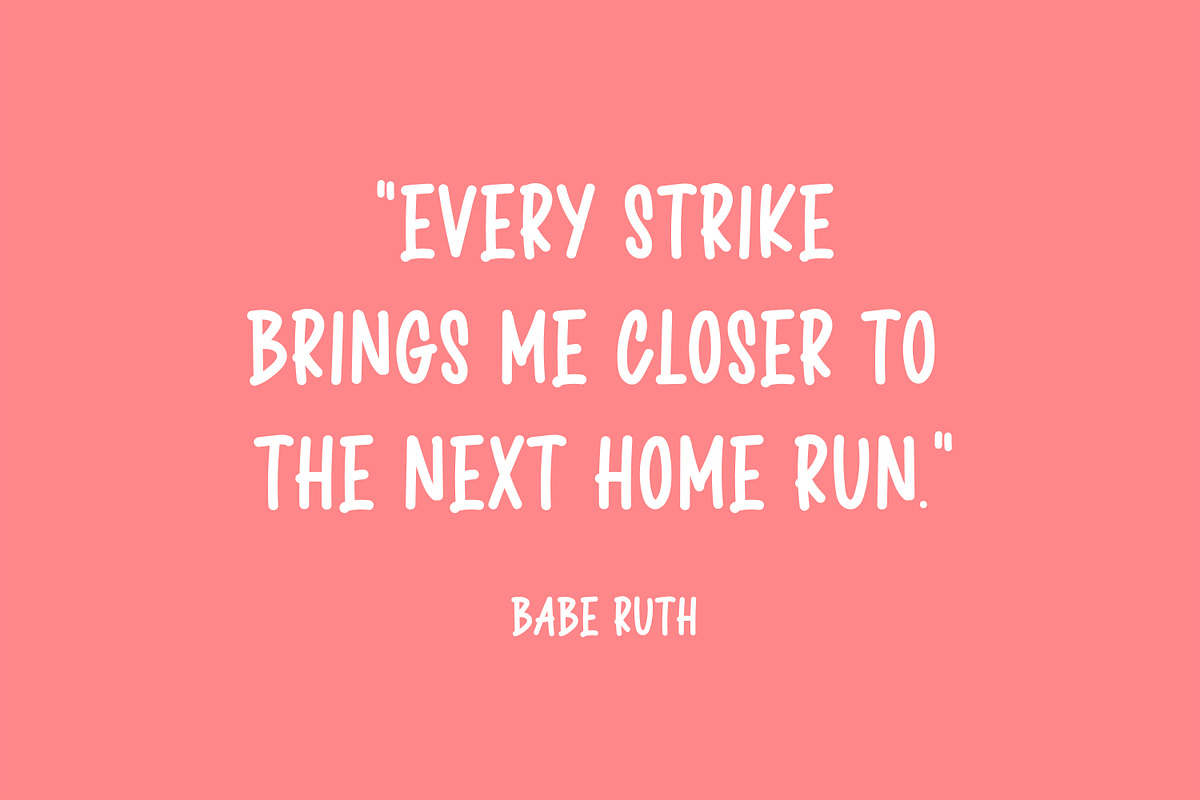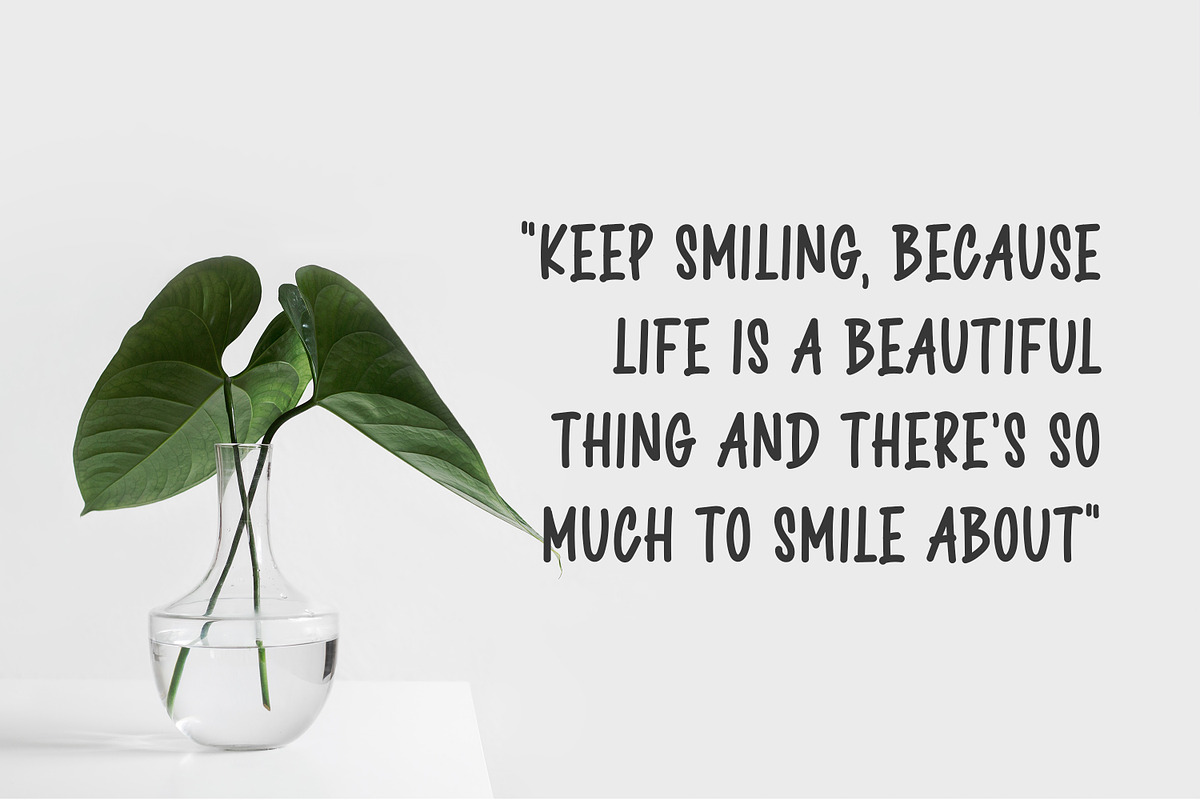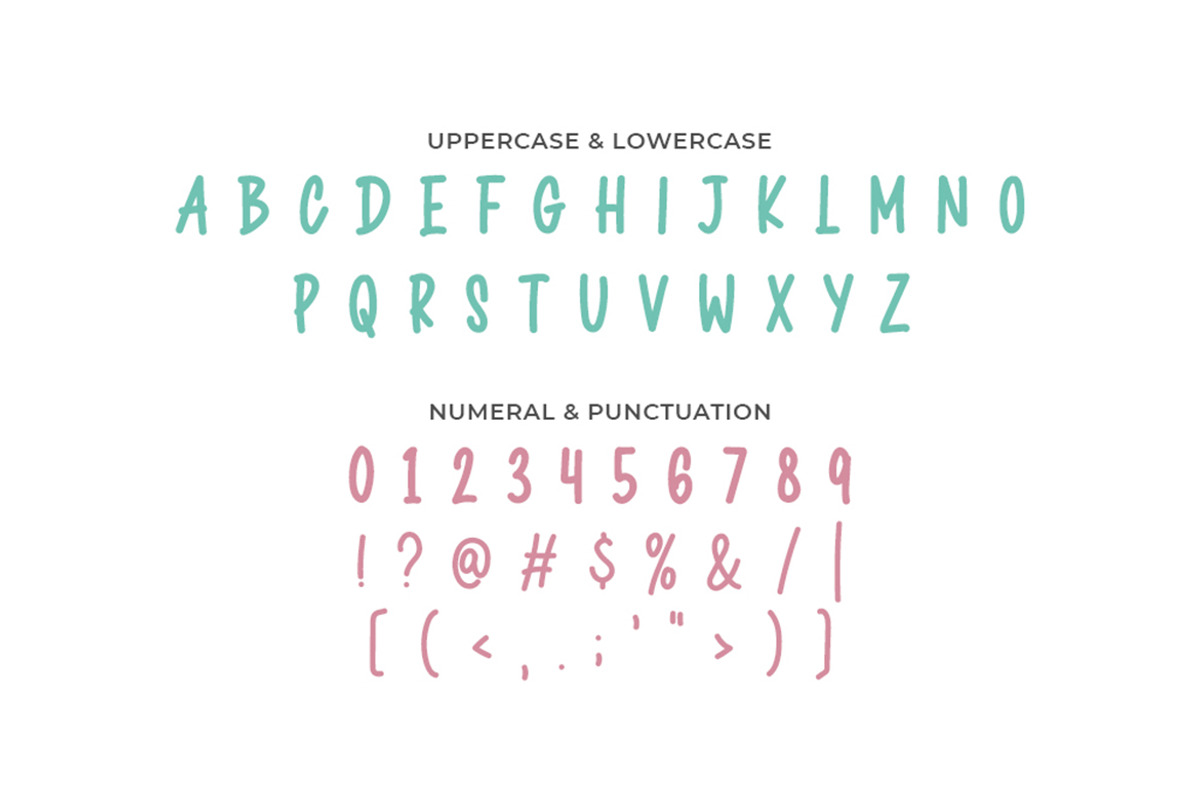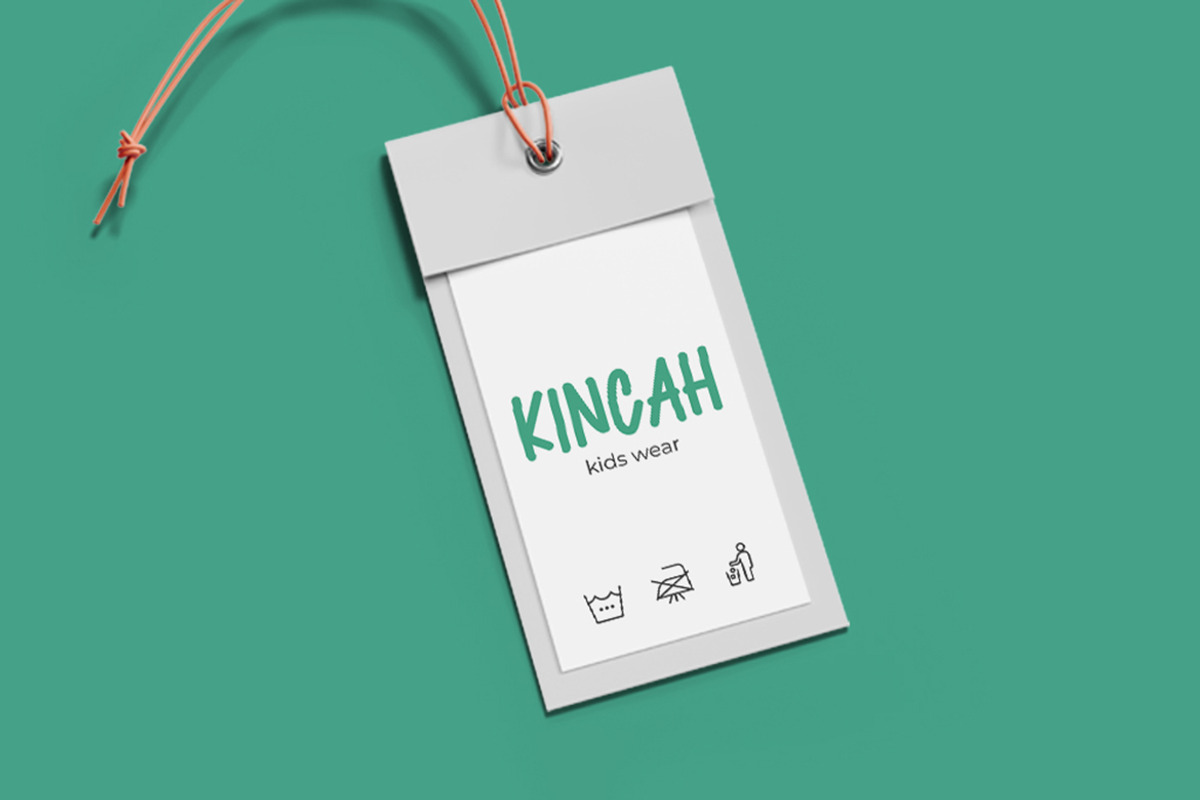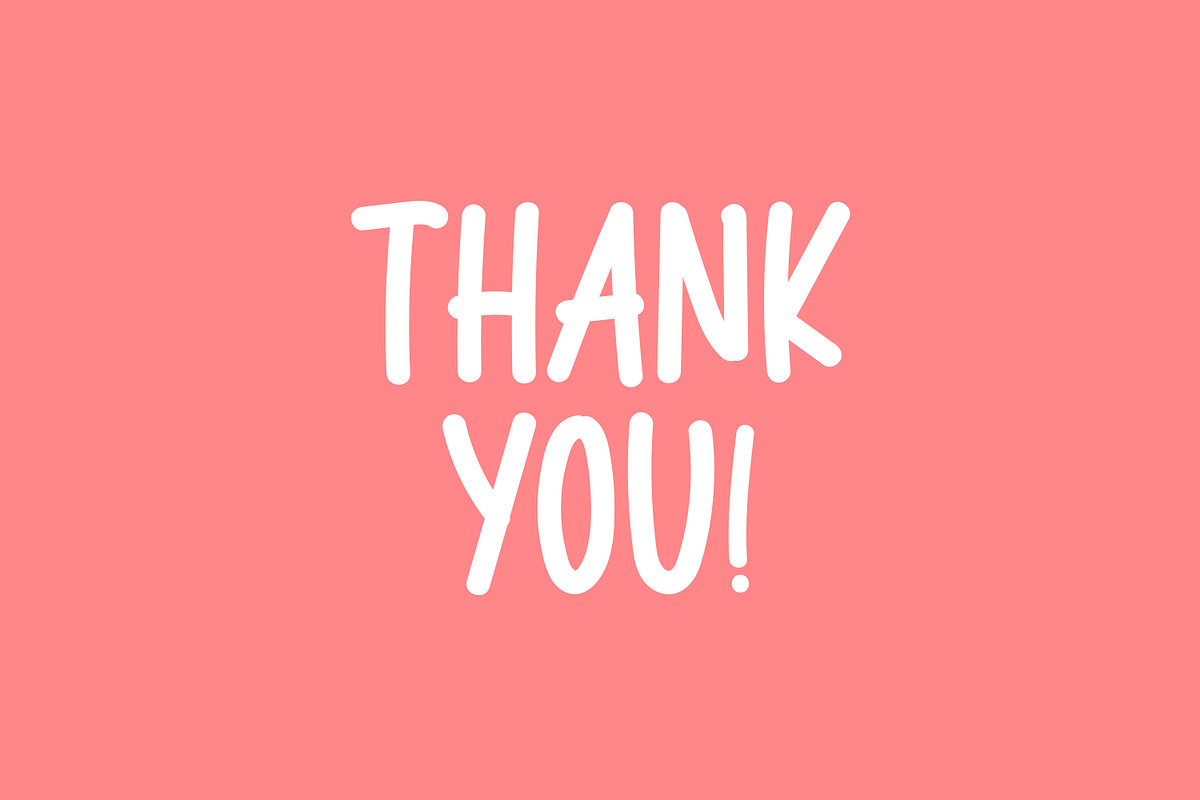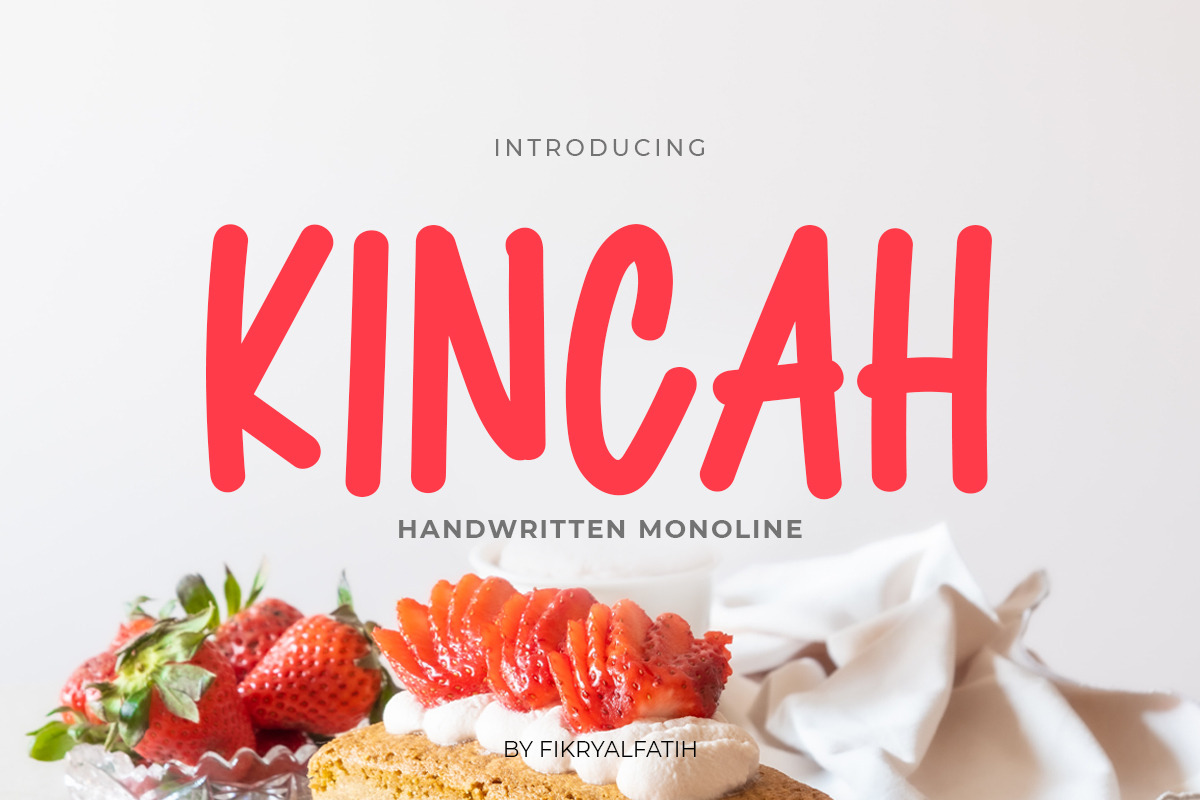
Kincah - Handwritten Font
Kincah is a handwritten monoline font that combines fun and playful glyphs. This font provides a luxurious hand-drawn effect that’s guaranteed to add great appeal to your quotes, logo designs, brand image, product packaging, merchandise & social media posts.